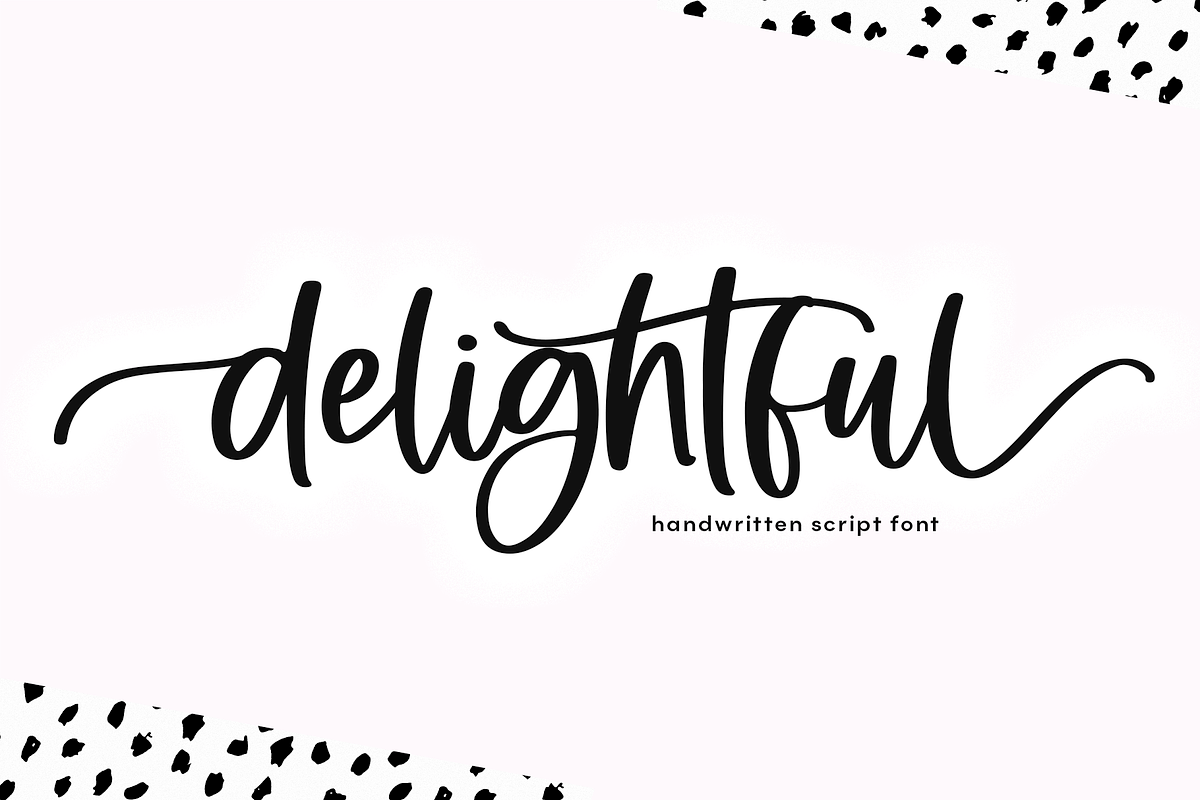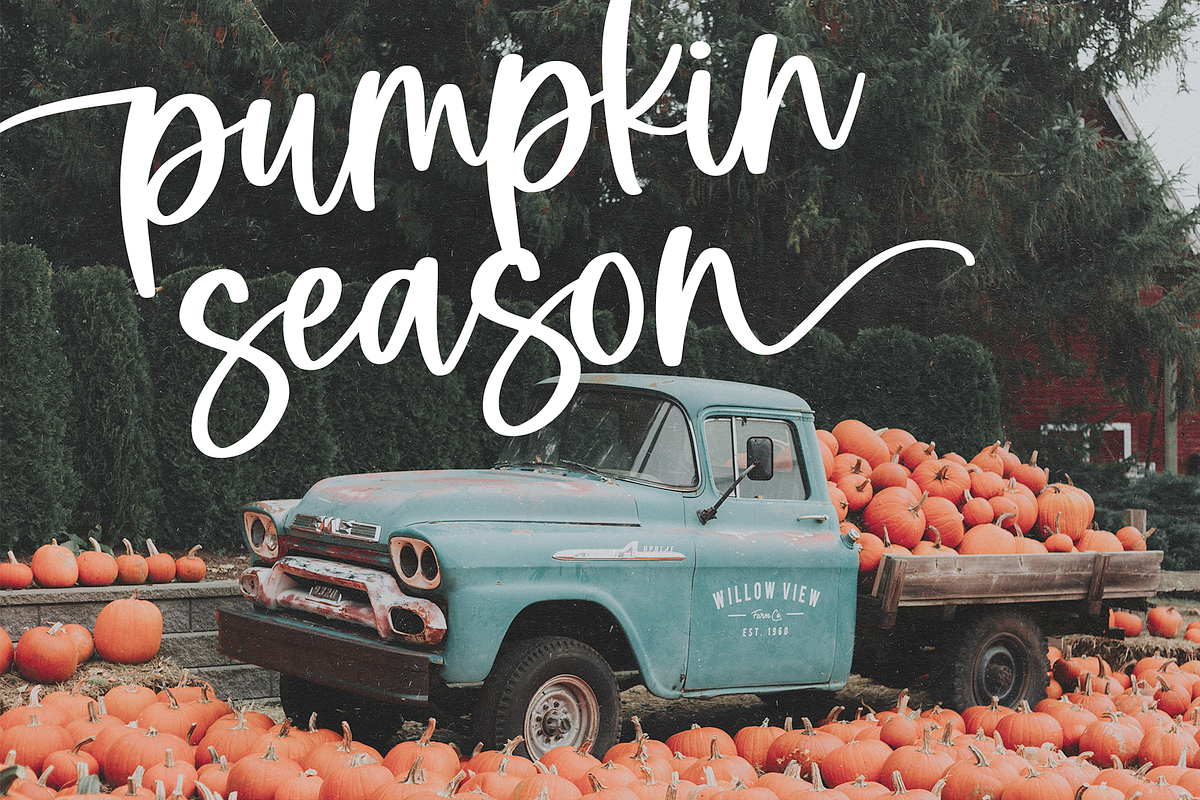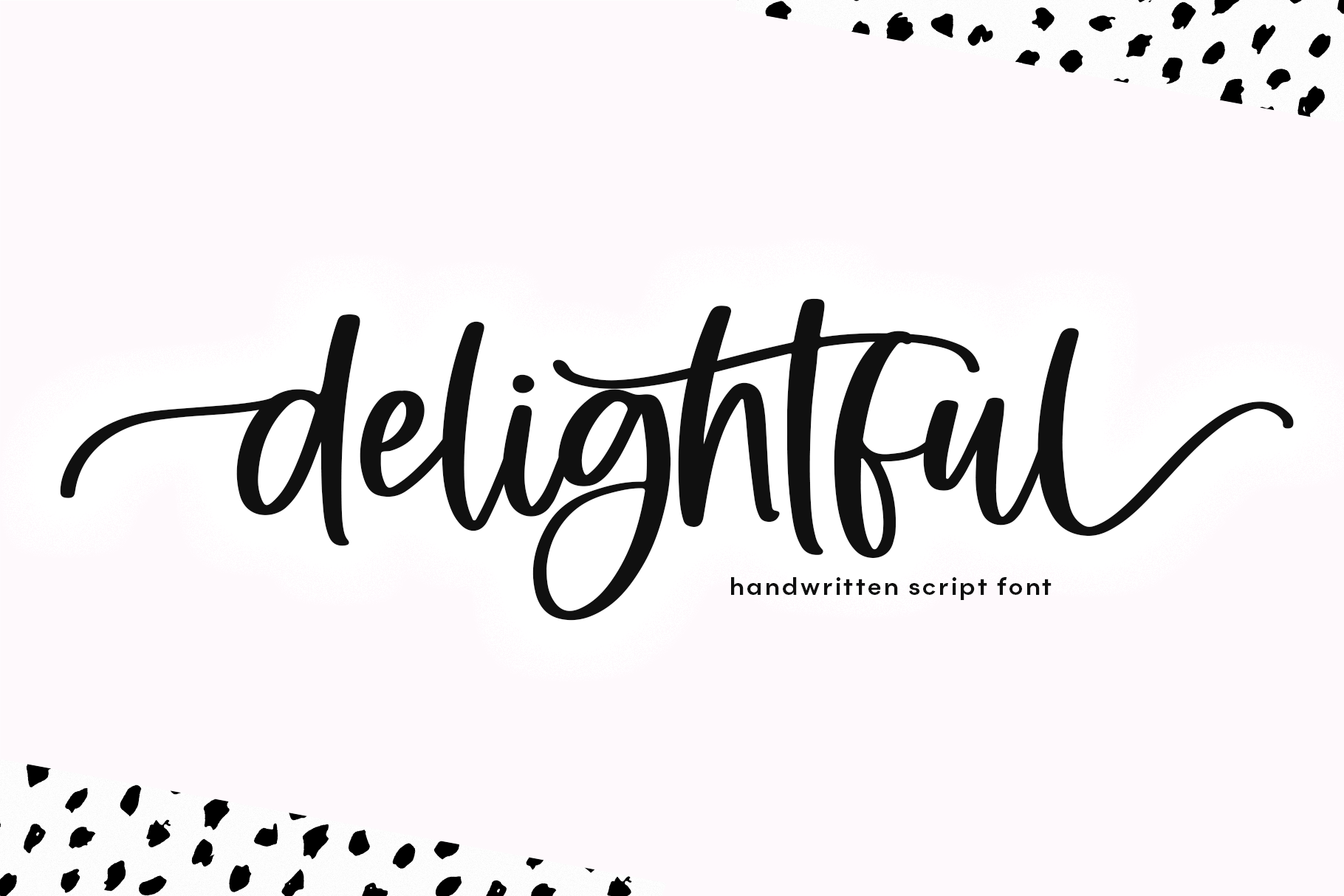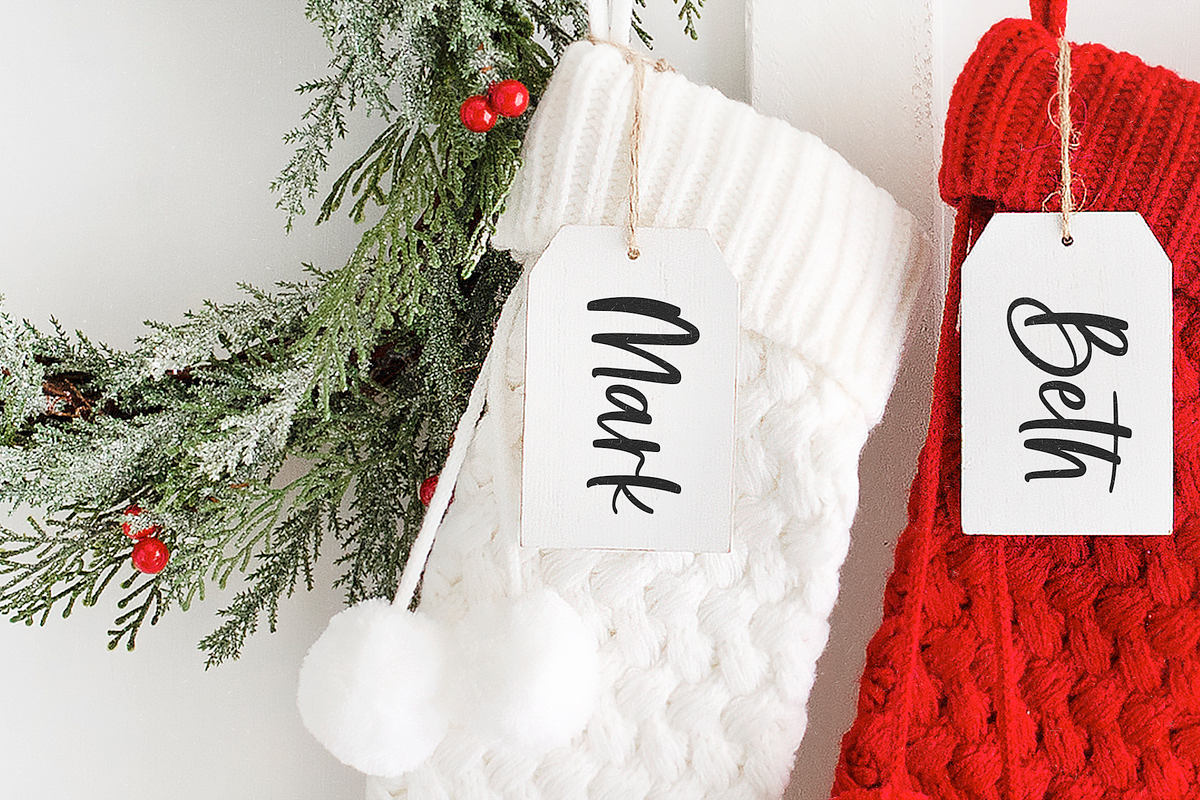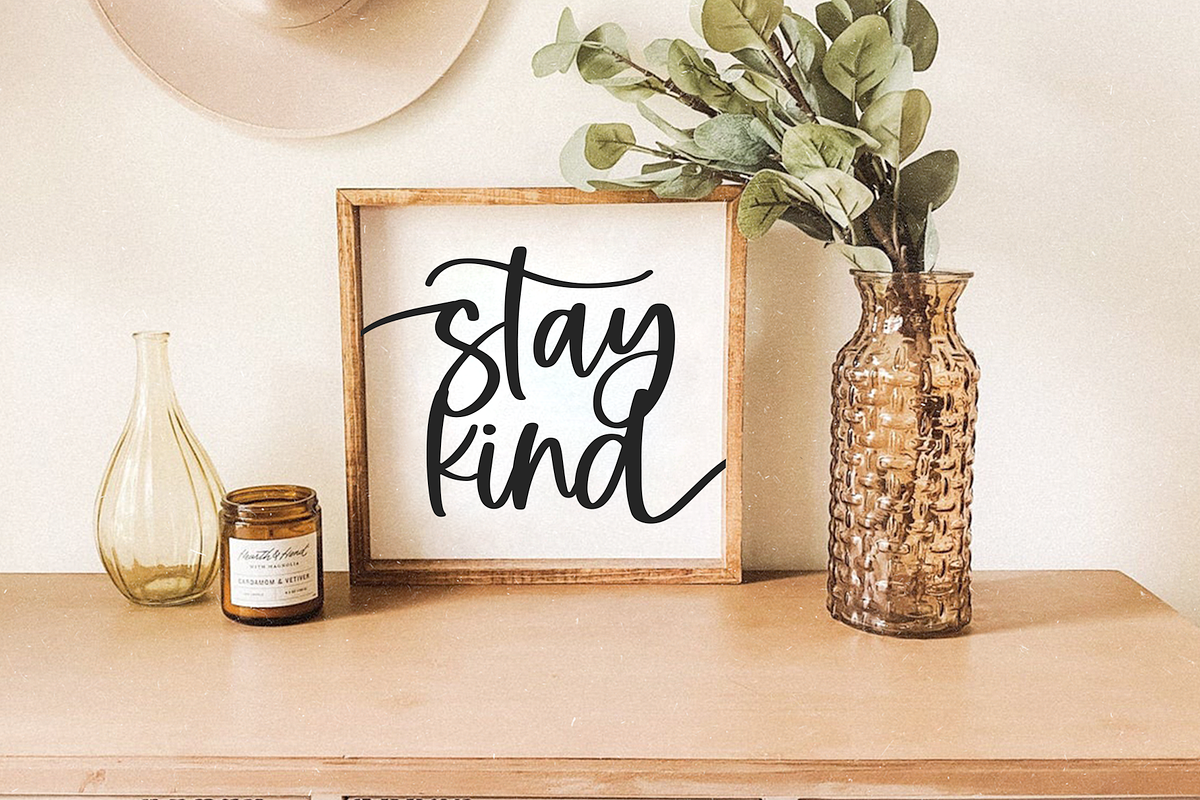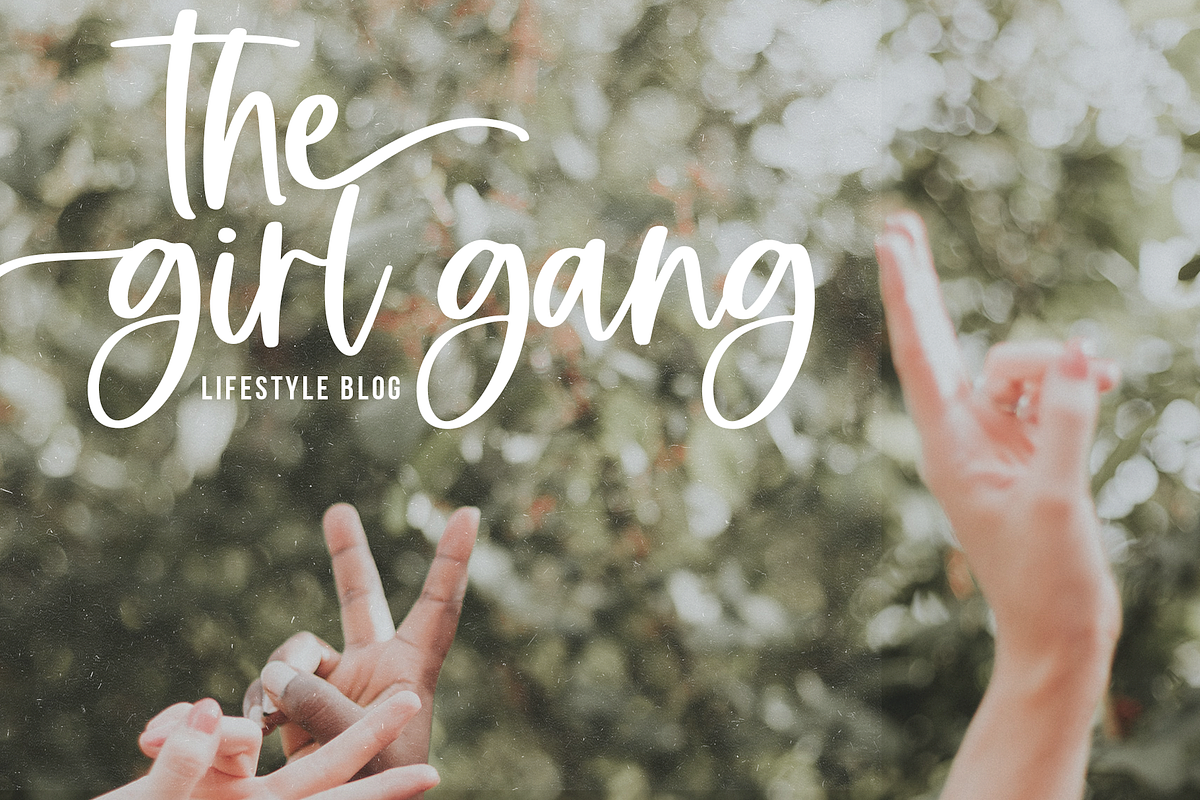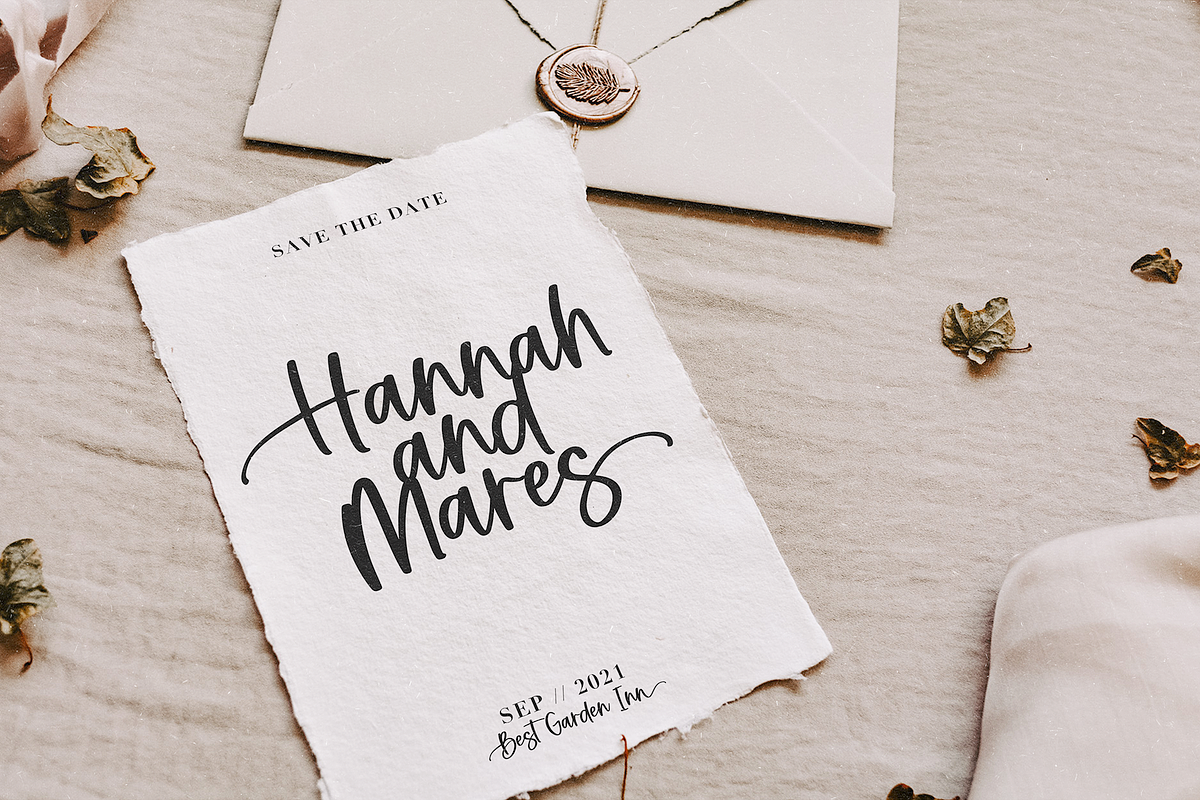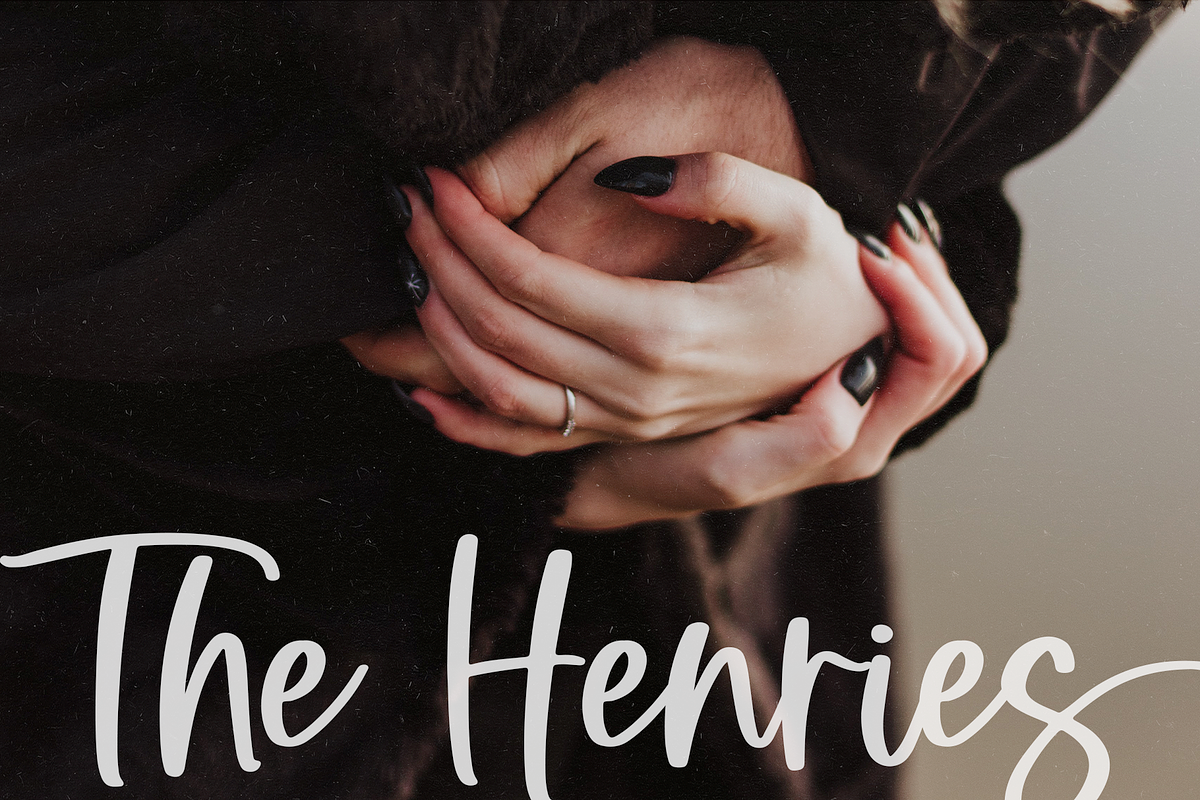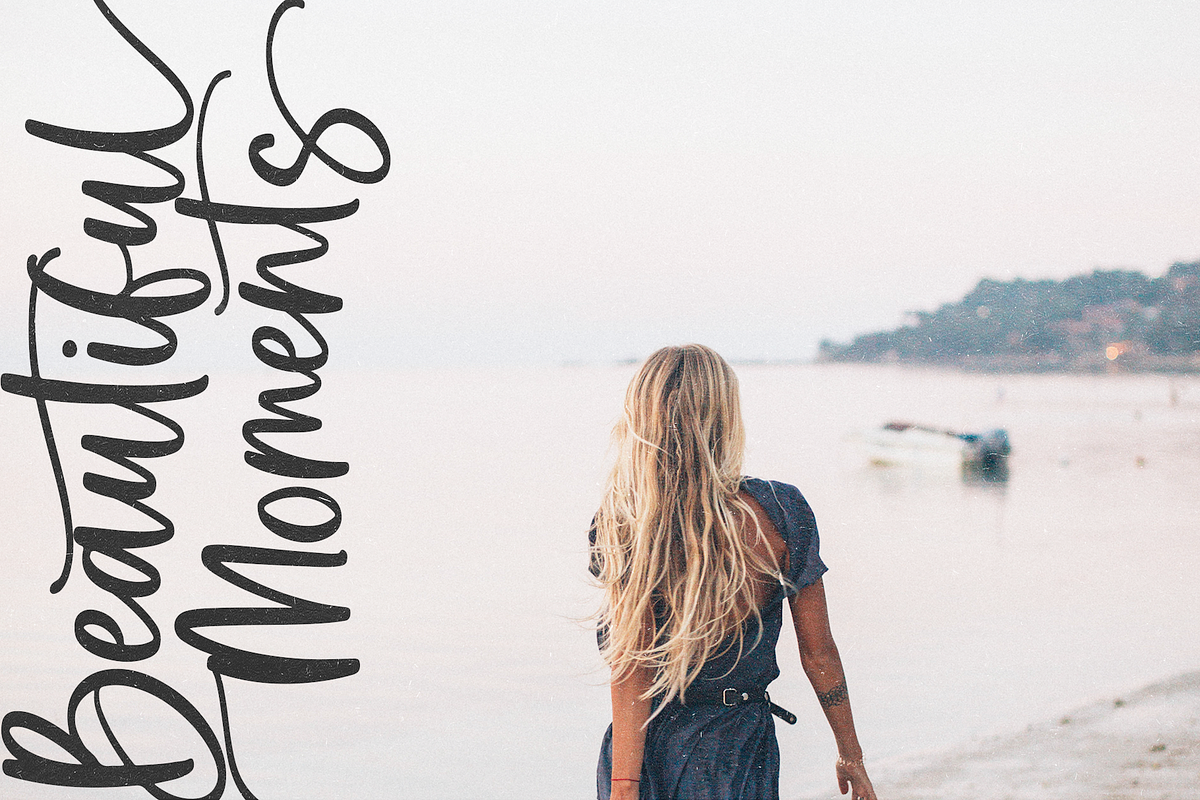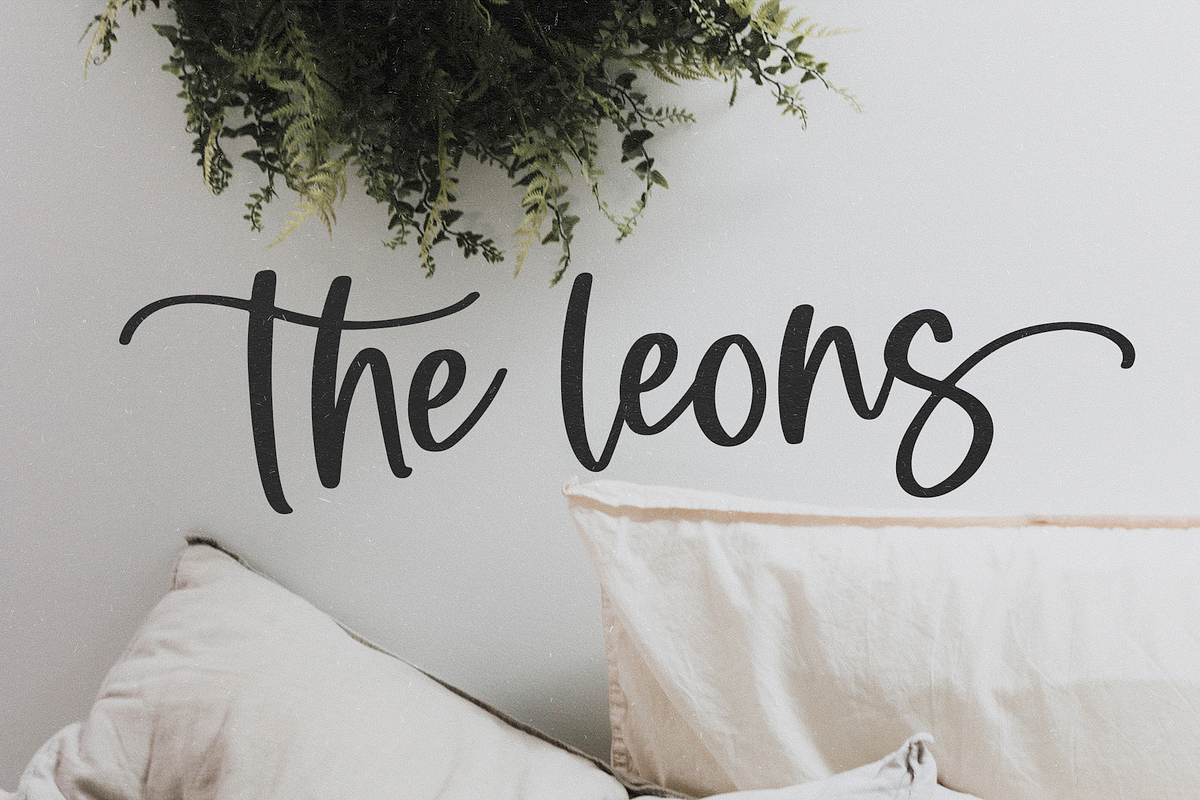
Delightful | Modern Script Font
Delightful is a handwritten script font in a modern calligraphy style
This font is perfect for quotes, branding, wedding decor, home decor, shirts, mugs, headings, blogs, logos, invitations and more!
This is an opentype font with special characters (swashes). These characters are easily accessible in programs such as Photoshop and Illustrator. You can access these letters in Cricut Design Space but you must use Font Book (Mac) or Character Map (Windows)